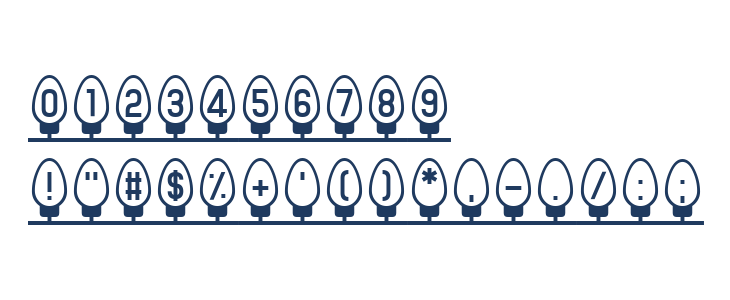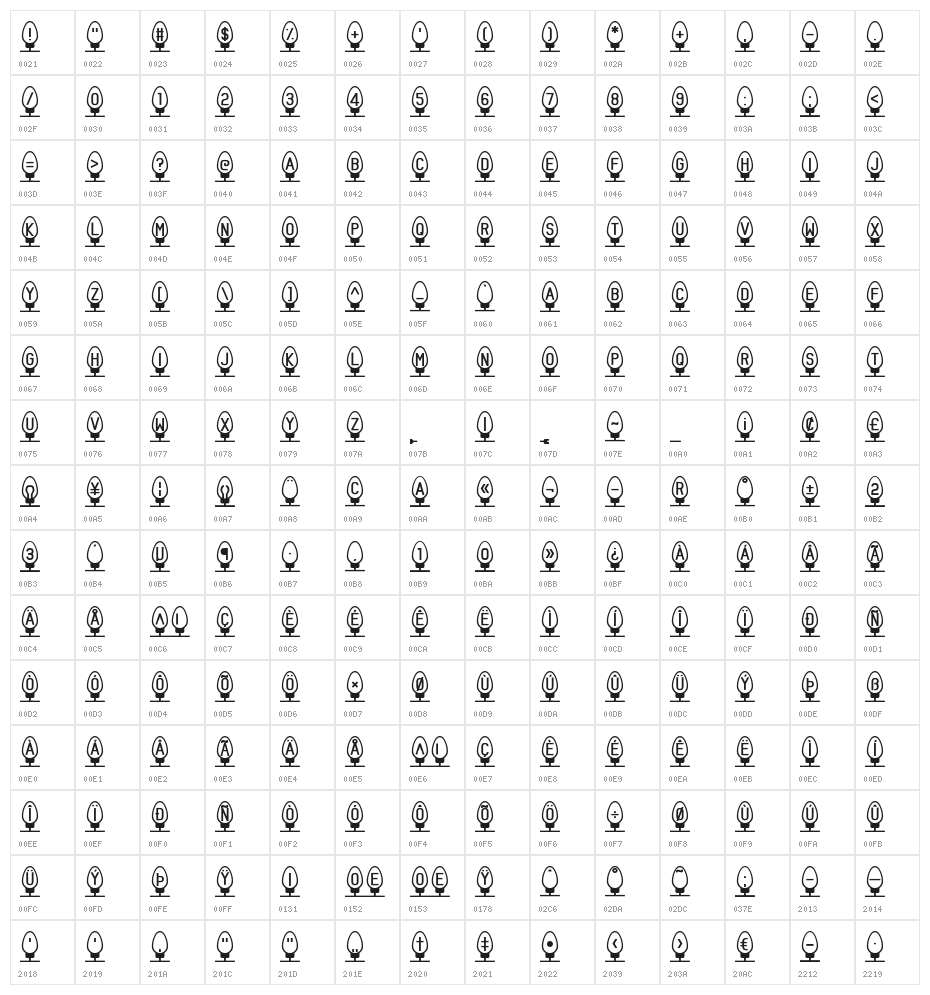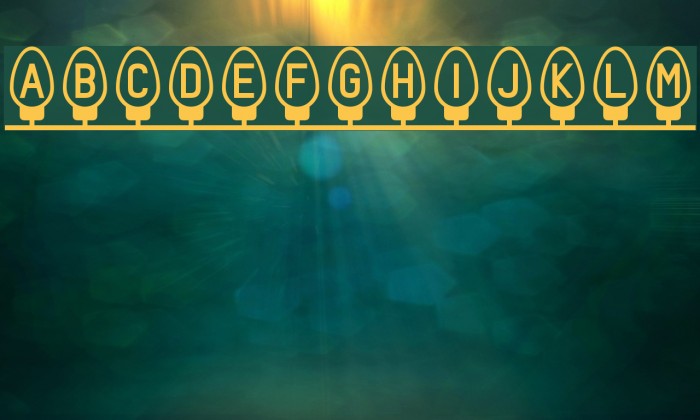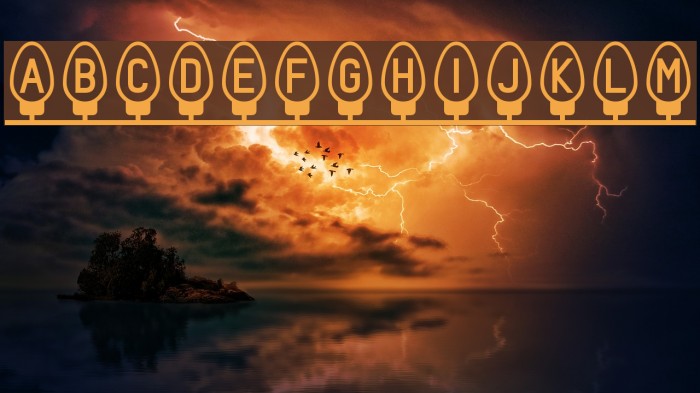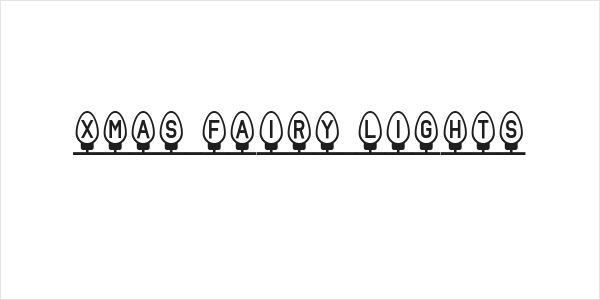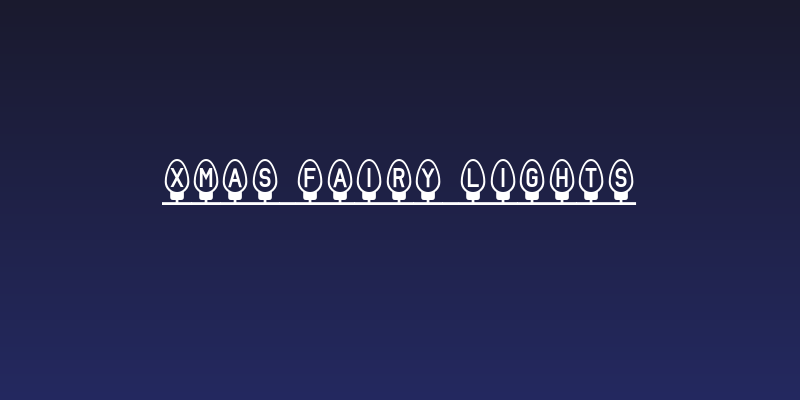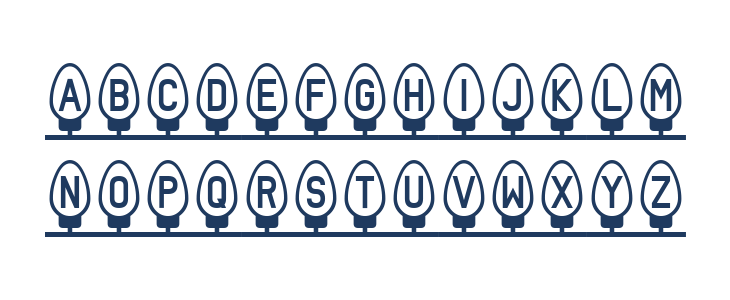
Xmas Fairy Lights Font
Xmas Fairy Lights Description
This playful and festive font features characters enclosed within stylized Christmas light bulbs, creating a whimsical and decorative appearance. Each letter and number is centered within an oval shape, reminiscent of traditional holiday string lights. The design is bold and eye-catching, making it ideal for seasonal projects. The characters are evenly spaced within their bulbs, ensuring readability while maintaining the decorative theme. This font is perfect for adding a touch of holiday cheer to any design, with its unique and creative presentation.
| Proposed Projects | Ideal for holiday cards, festive banners, seasonal advertisements, and decorative posters. |